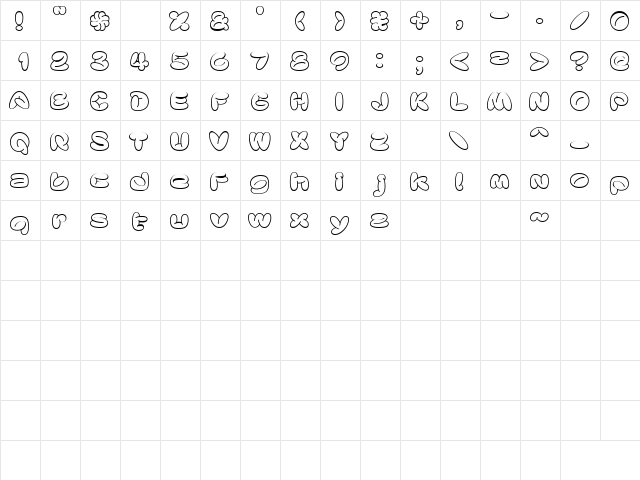
FatfontOutline Regular
Design Context for FatfontOutline Typeface
FatfontOutline is built around its visual character rather than neutral utility — its distinctive forms are designed to make an impression at display sizes.
Font Pairing: Pair with a clean neutral sans-serif for body copy to let FatfontOutline's character lead without overwhelming the composition.
Pro Tip: Treat FatfontOutline as the centrepiece of your typographic hierarchy. One strong heading set in a decorative face can carry an entire layout.